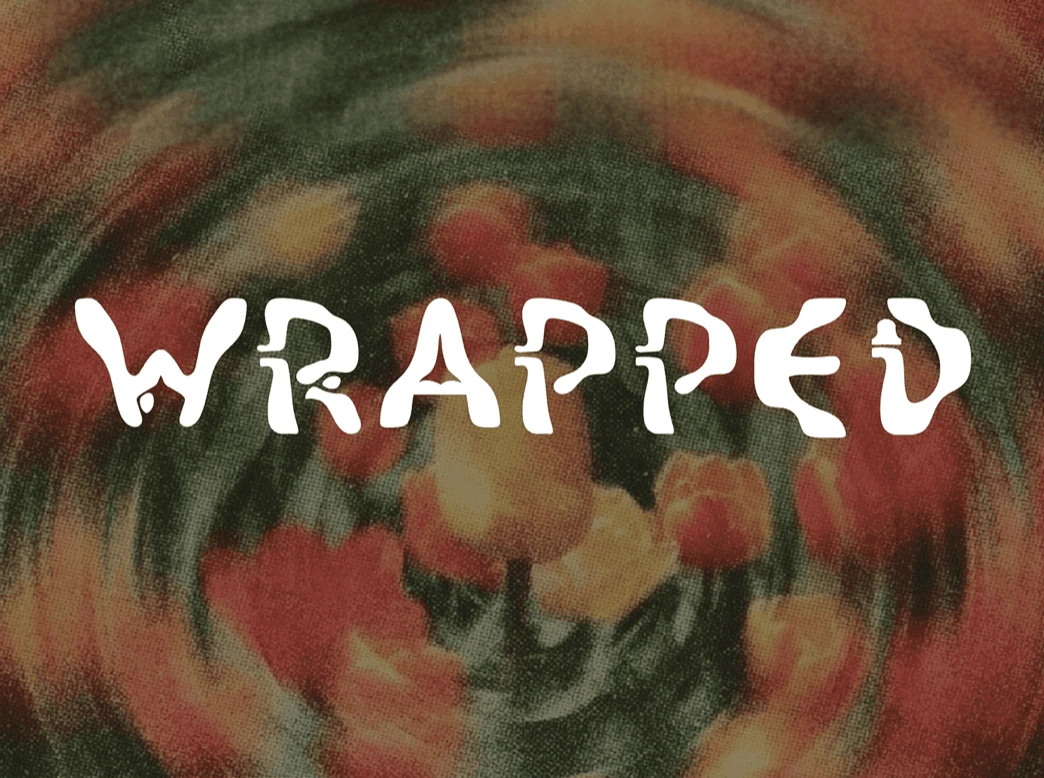
“Wrapped” is an original typeface inspired by Fluidism, designed to express movement, adaptability, and flow through connected and fluid letterforms. The project explores the balance between experimental typography and readability, creating a modern and expressive typeface for digital and print media.